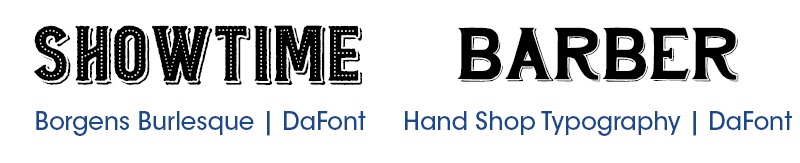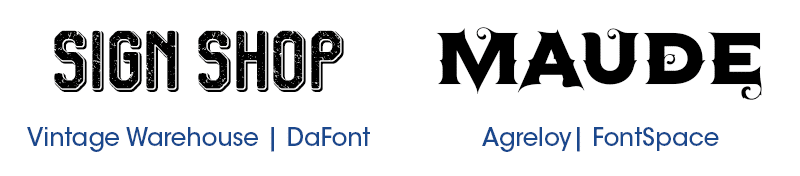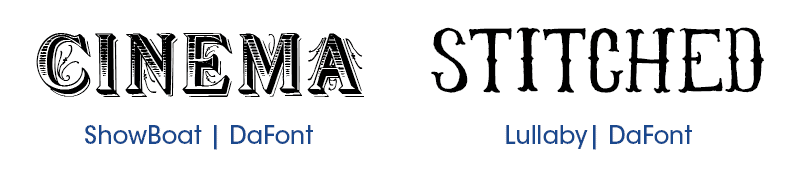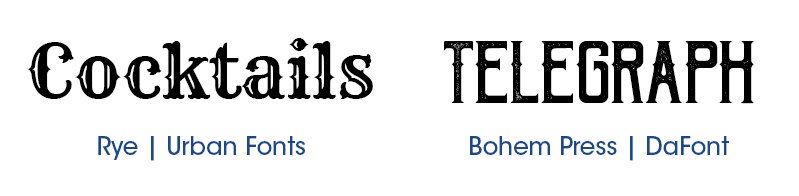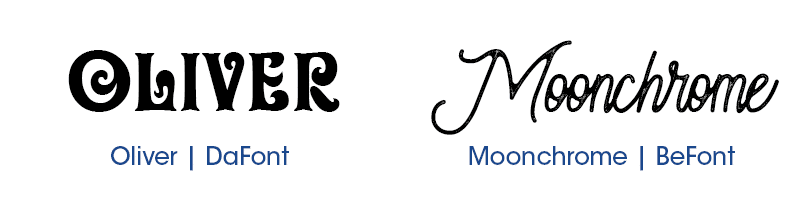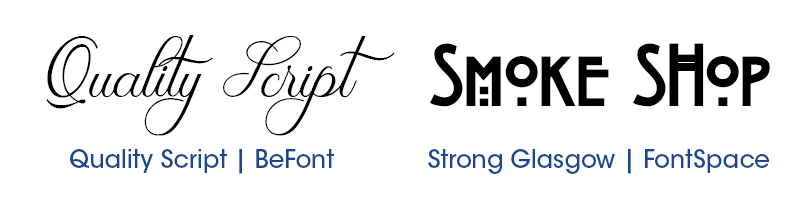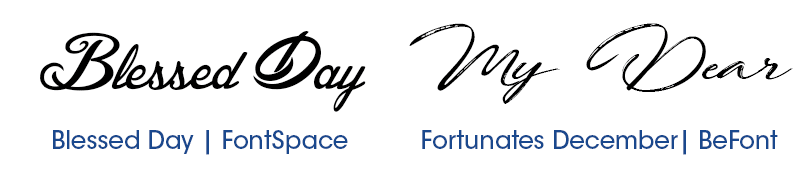
16 Free Vintage Fonts
Looking to give your next print project a gorgeous "retro" touch? We've assembled a collection of our favorite vintage style fonts to help you achieve just that. Enjoy!